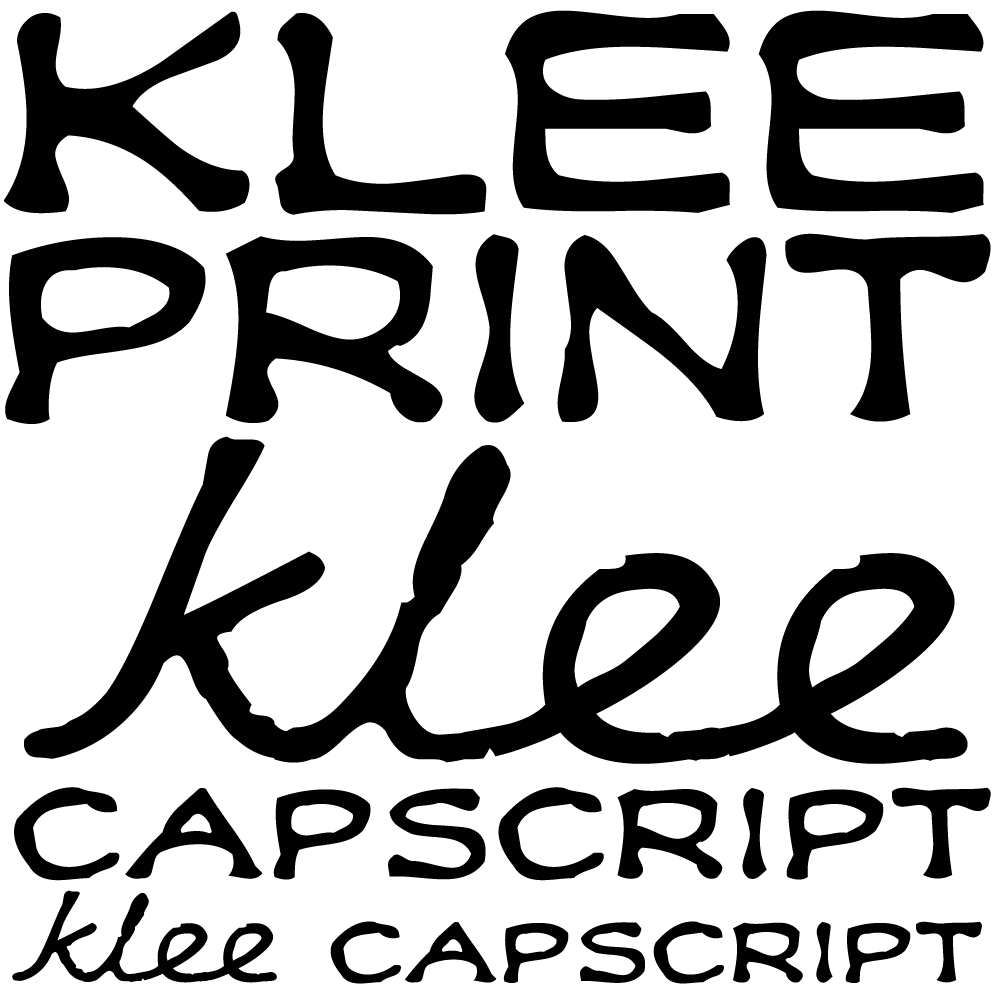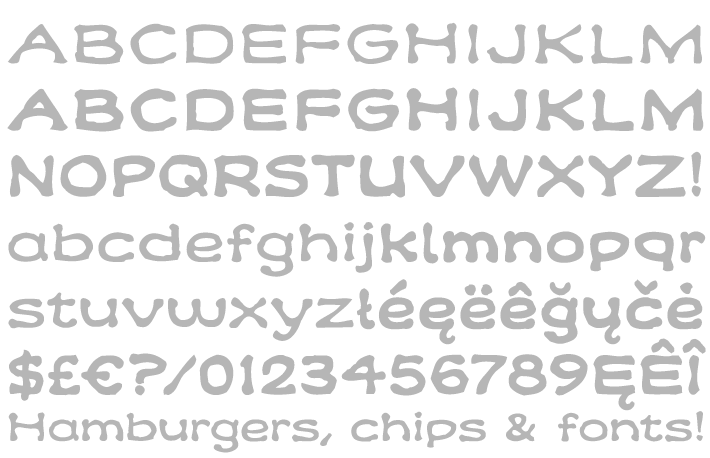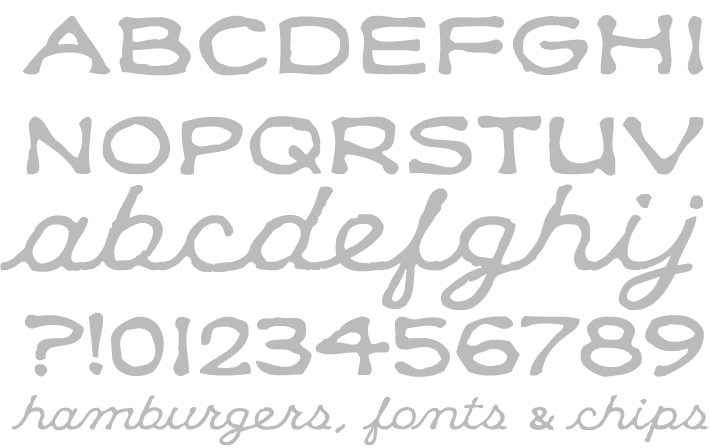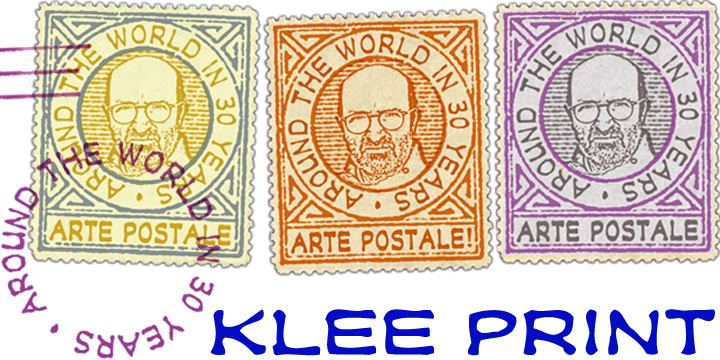
Klee Print and CapScript
Klee Print is based on the handwritten capitals of the American artist Emma Klee, to which a matching lowercase and many accented characters have been added. Regular and Bold weights are included in the licensed download.
Also provided is the Klee CapScript font which has an upper case based on Emma’s capitals and a lower case adapted from her cursive writing. CapScript is really two partial font sets designed to be used separately with words either in capitals or in script.